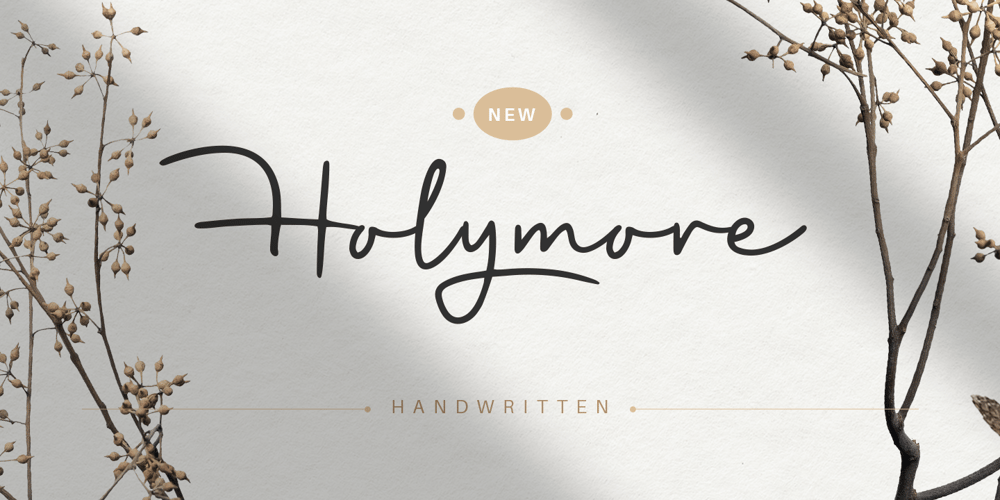
Holymore Font Family was designed by Hendry Juanda and published by Letterhend. Holymore contains 1 styles and family package options. Introducing, Holymore! a handwritten font that will bring your design into a natural looking with its handwritten touch. this font is perfect for branding, packaging, logotype, headline, wedding invitation, etc.Features : uppercase & lowercase numbers and punctuation multilingual alternates and ligatures swash PUA encoded We highly recommend using a program that supports OpenType features and Glyphs panels like many of Adobe apps and Corel Draw, so you can see and access all Glyph variations.